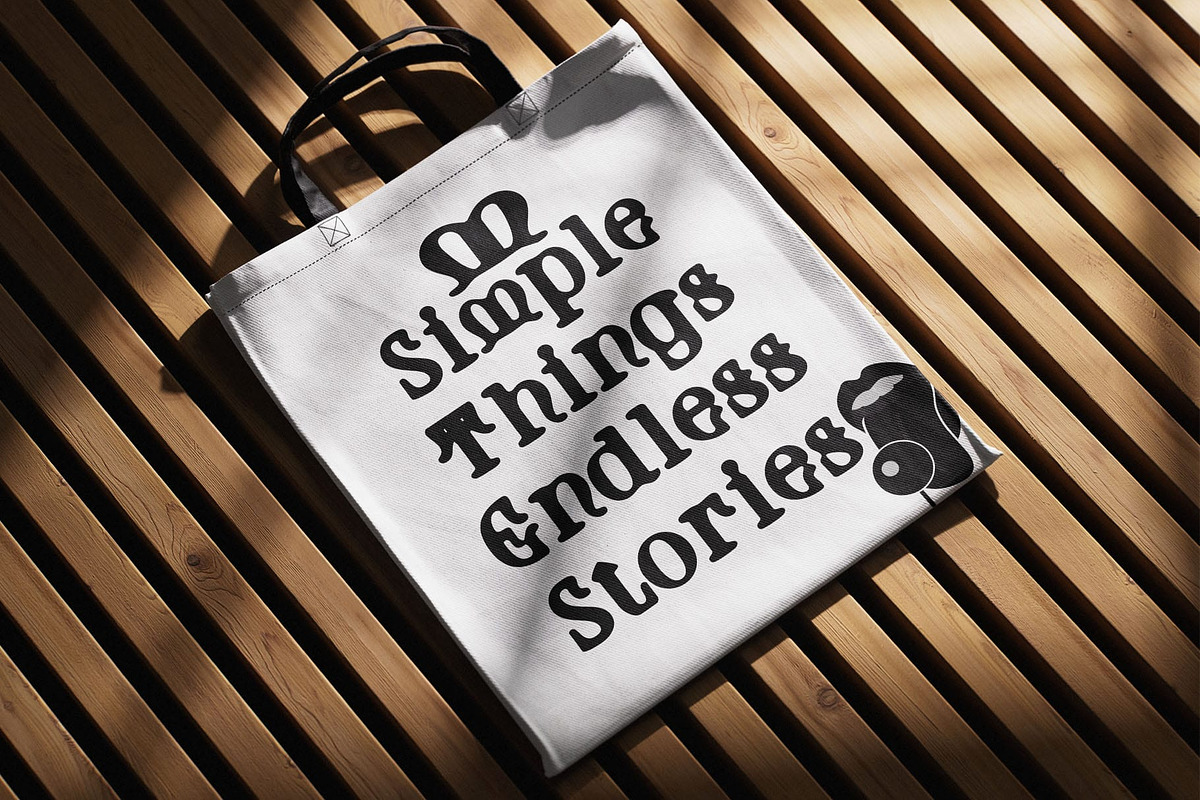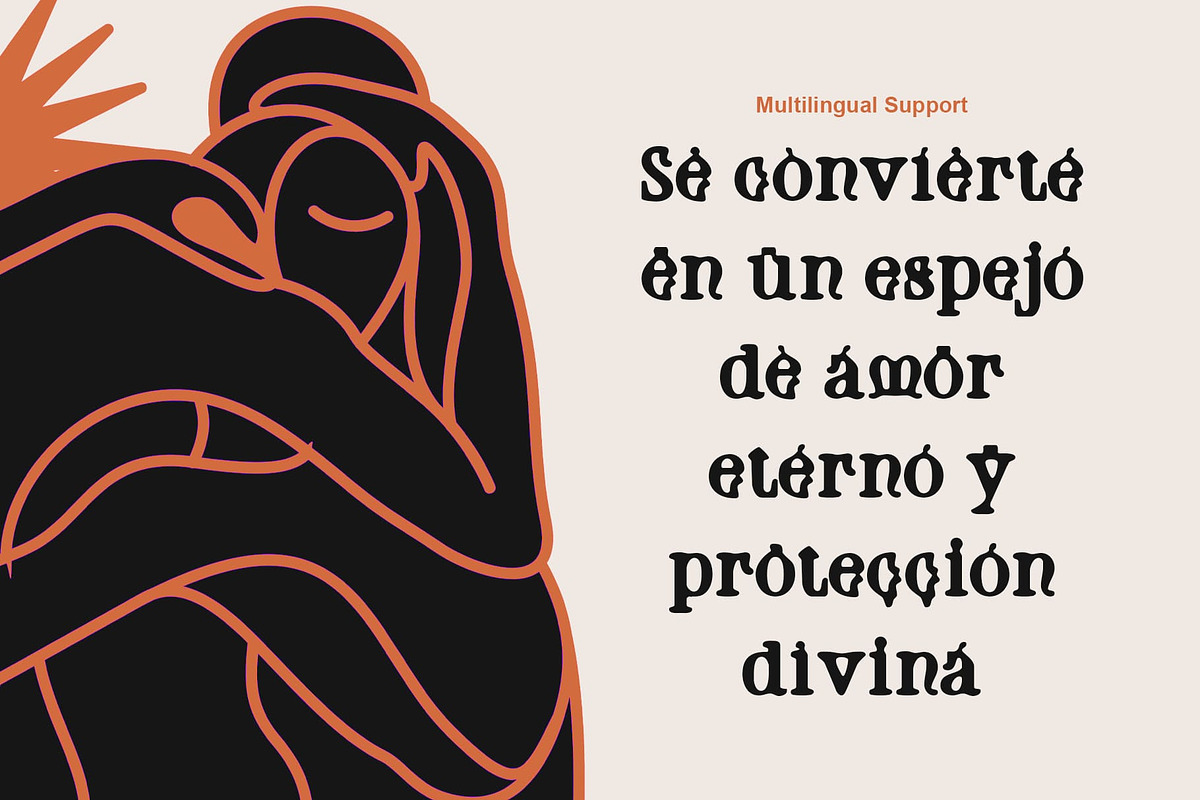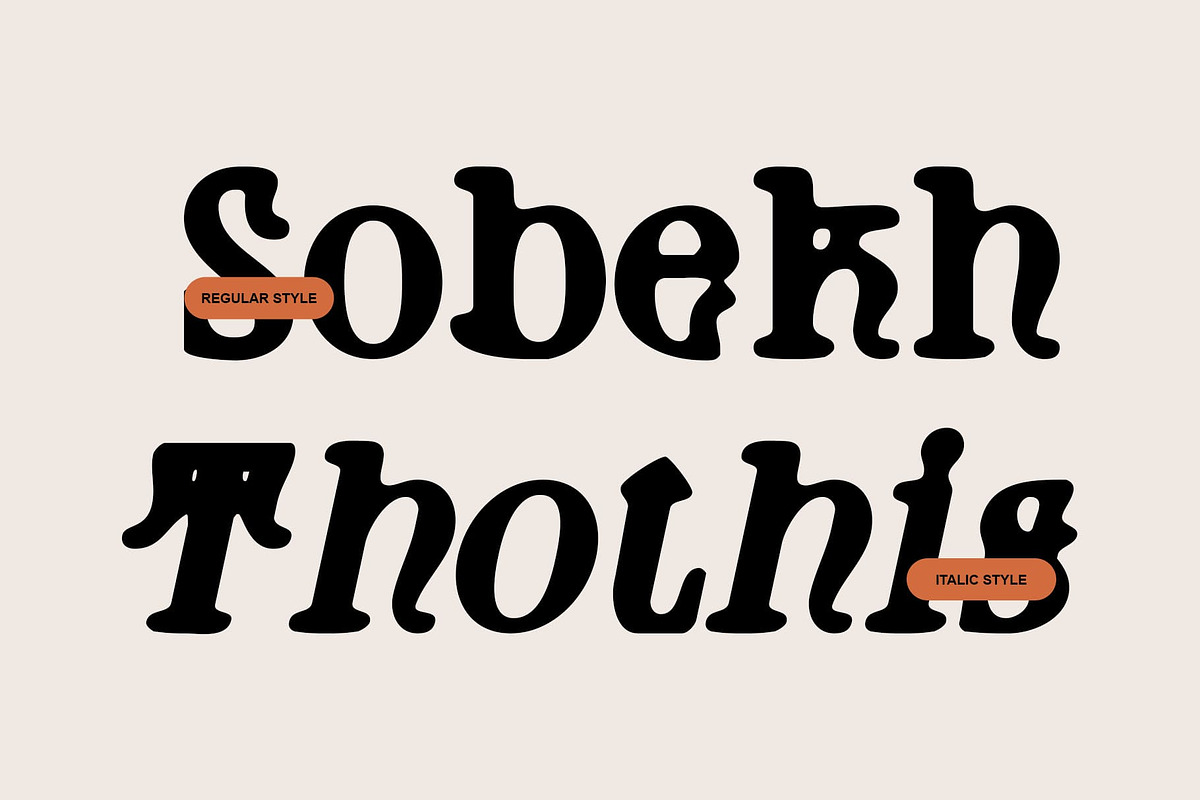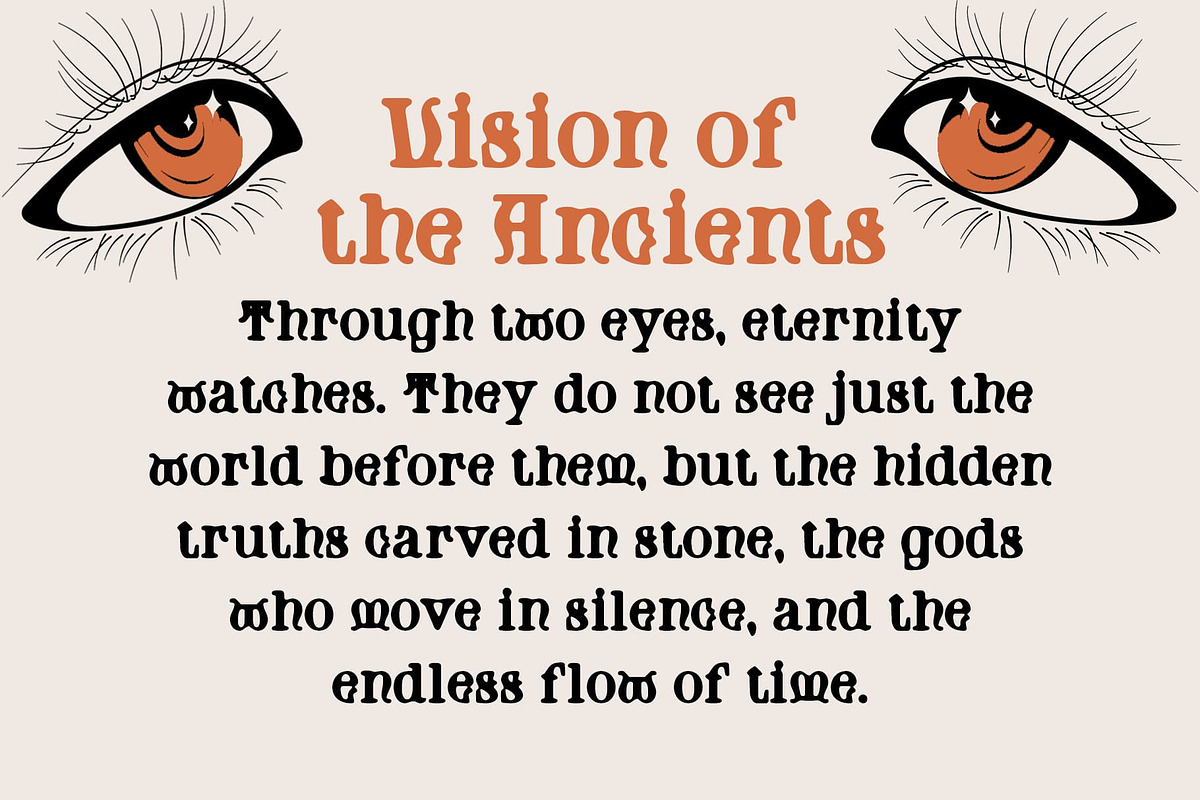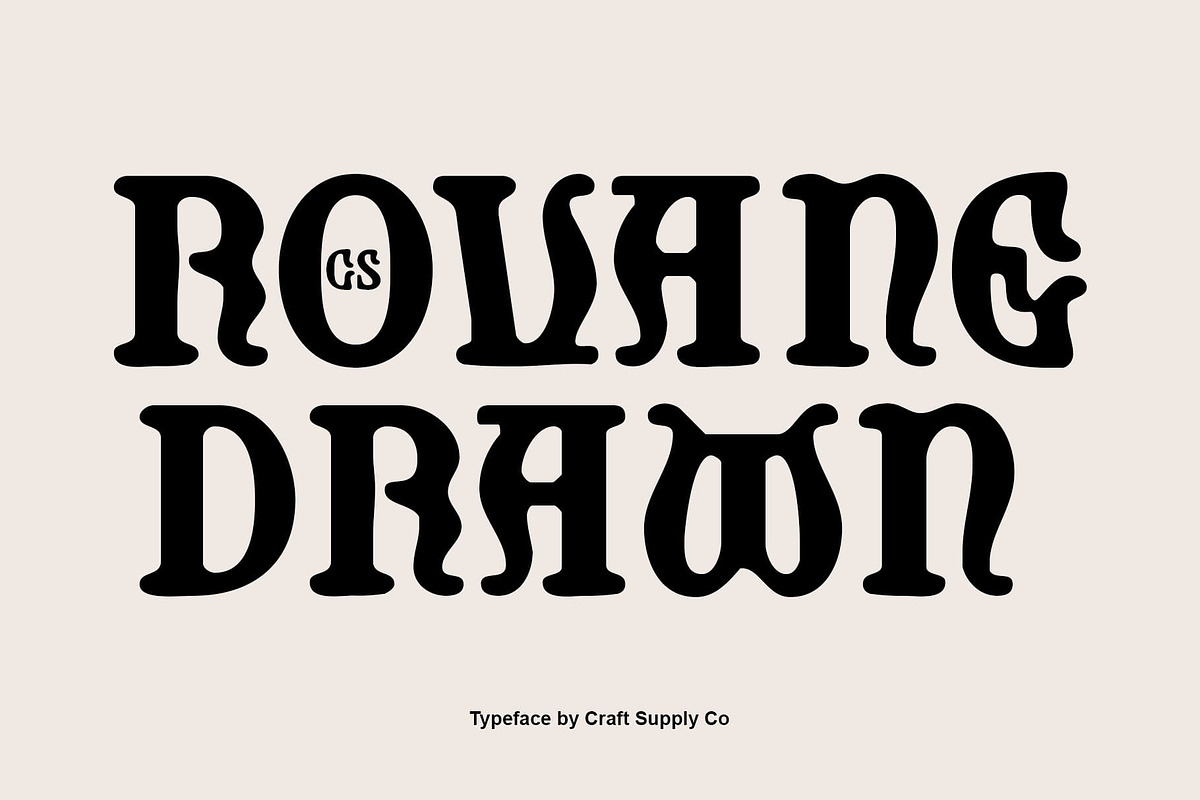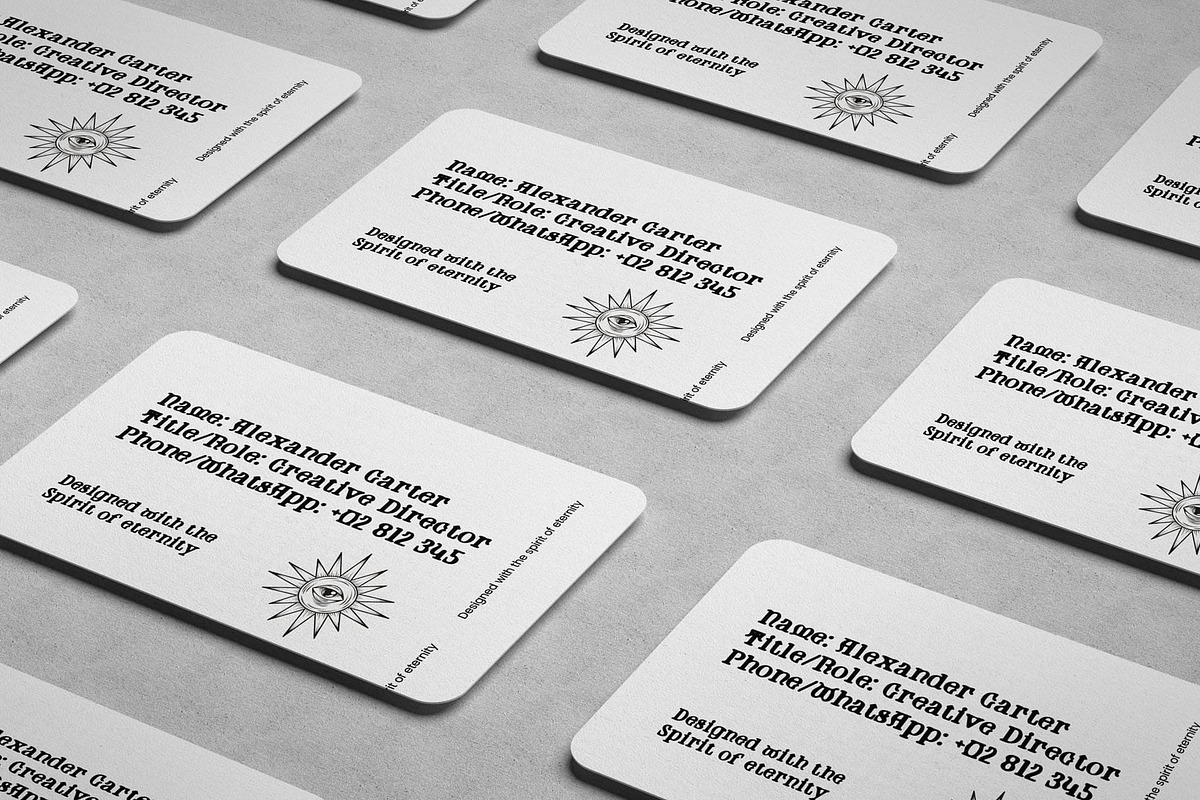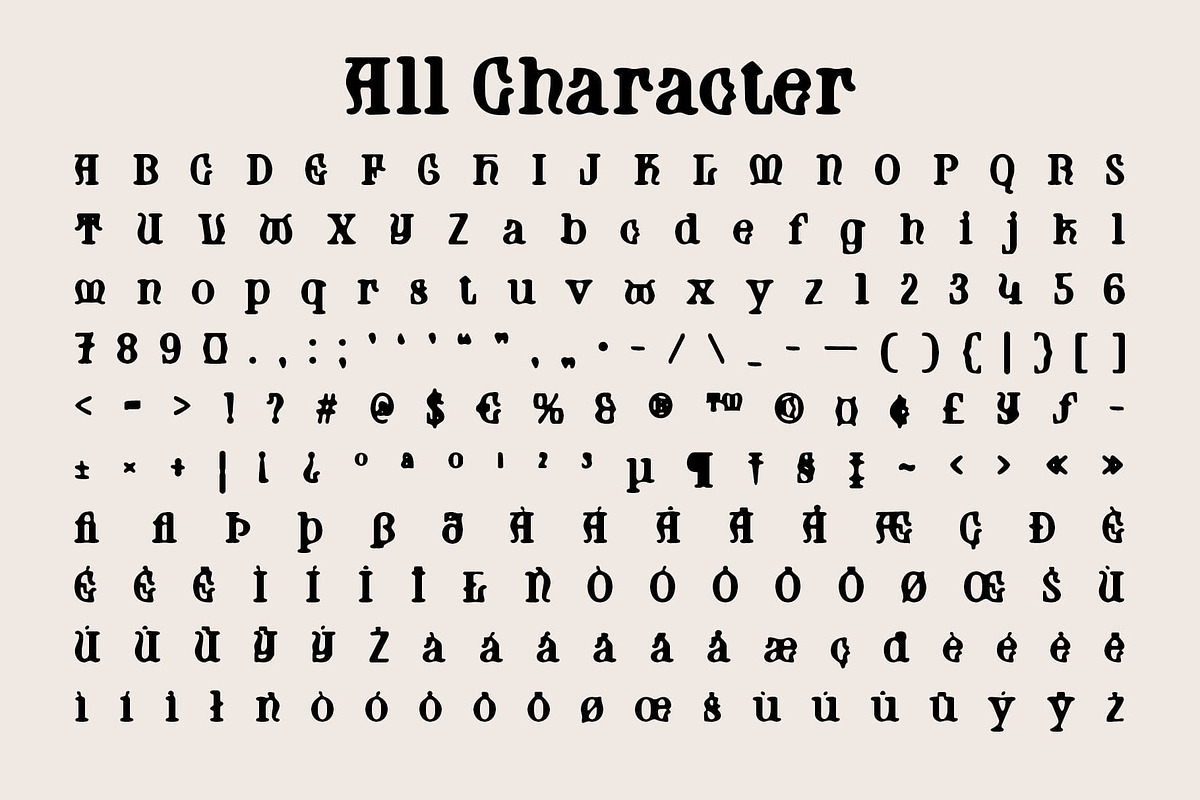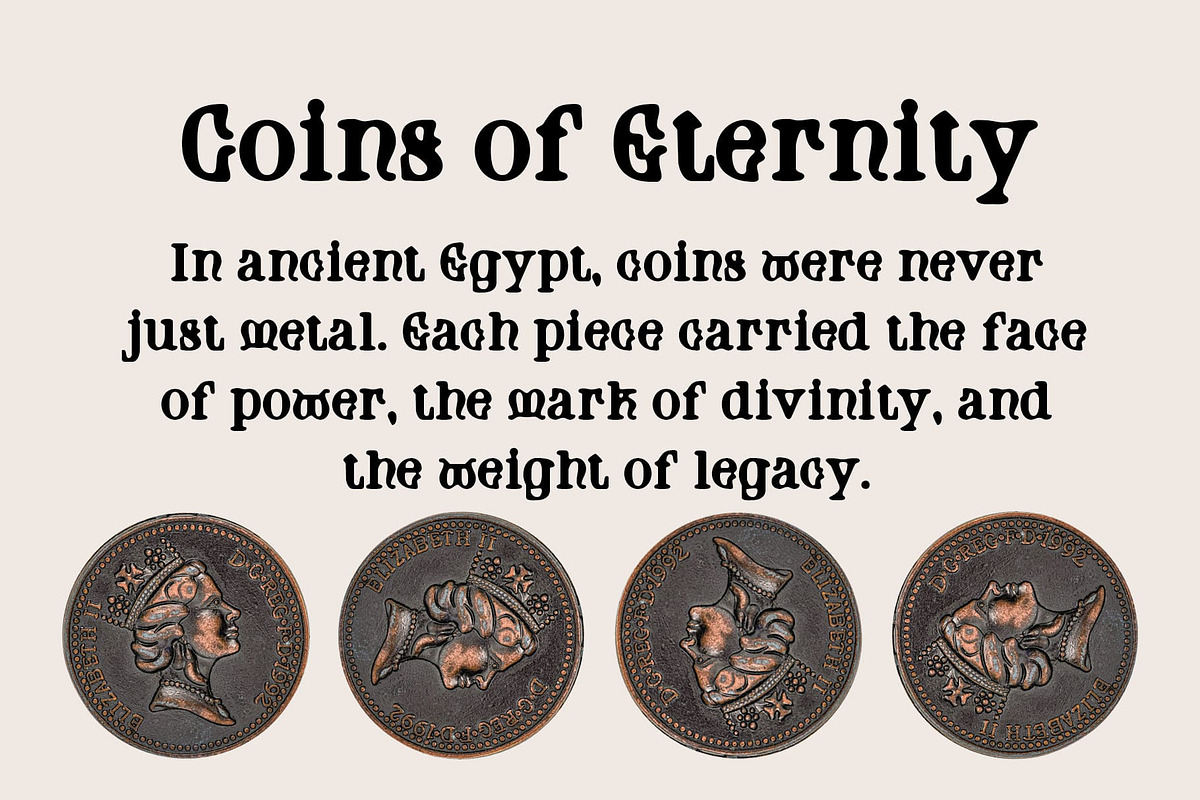
CS Rovane Drawn
CS Rovane Drawn: Reviving the Spirit of Ancient Manuscripts
Uncial-Style Serif Display with a Historic Touch This is a serif display font inspired by the beauty of uncial script, reminiscent of medieval manuscripts and classical writings. Its rounded, traditional forms reflect centuries of cultural heritage, while the drawn texture brings a human and artistic dimension to the design.
Historic Tradition with Contemporary Character Infused with the aesthetics of ancient lettering, carries the elegance and gravitas of manuscript culture. Yet, its clean proportions and modern refinement make it adaptable for contemporary design. By blending the old with the new, it delivers a unique voice that resonates across both historical and modern contexts.
Hand-Drawn Artistic Finish for Authenticity The drawn quality of gives each letter a tactile, handmade presence. This artistic detail enhances its authenticity, making the font stand out in a world of polished, digital perfection. The texture conveys a crafted, timeless charm, ideal for designers who want their work to feel both authentic and unique.
Perfect for Cultural and Luxury Design From book titles and editorial spreads to luxury branding and classical posters, this font adapts beautifully to projects that demand refinement. Its blend of uncial heritage and artistic texture ensures it captures attention while maintaining elegance. Designers seeking to merge cultural richness with modern expression will find to be a powerful tool.